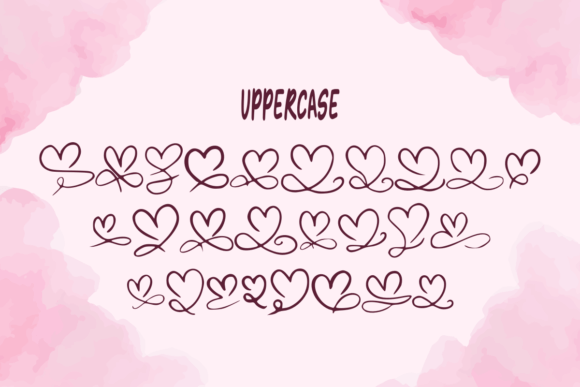
About Lovedo Font
Lovedo is a dingbat font that features adorable valentine-related glyphs. Your logos, crafts, social media posts, YouTube videos, and many other creative ideas can all benefit from using this typeface to make them look more professional.